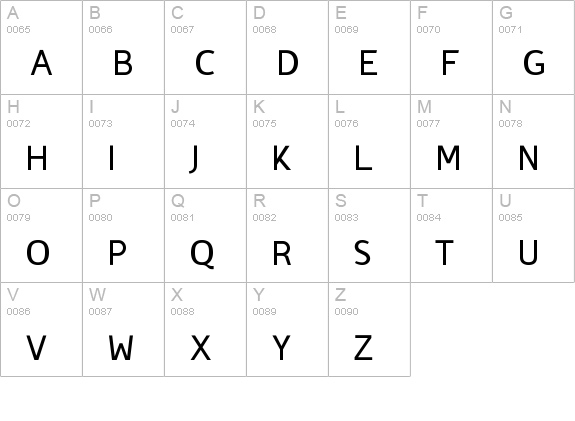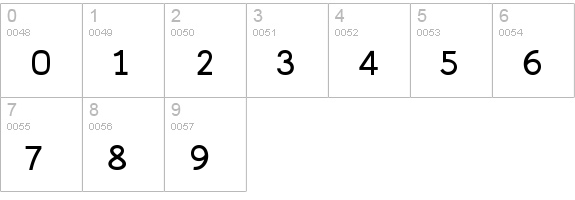
Domestos98-Normal Font Details
Domestos98-Normal is the standard, neutral variant in the Domestos98 typeface family \xE2\x80\x94 well suited to general body text, paragraphs, and standard typographic work.
Domestos98-Normal font exudes a sense of modern simplicity and sleek sophistication. Its clean lines and balanced proportions make it a versatile choice for a wide range of design projects. Whether you're creating a professional document, crafting a stylish logo, or designing a captivating website, Domestos98-Normal font delivers a polished and contemporary look. What sets Domestos98-Normal font apart is its seamless blend of readability and aesthetic appeal. The crisp letterforms ensure clear communication, while the subtle details add a touch of elegance to any text. This font is perfect for conveying a sense of professionalism and refinement in your visual creations. Best of all, Domestos98-Normal font is free to download at FontsMarket.com. This means you can easily access this high-quality typeface without any cost, allowing you to elevate your design projects without breaking the bank. Don't miss out on the opportunity to enhance your work with the timeless charm of Domestos98-Normal font. Download it today and let your creativity shine!